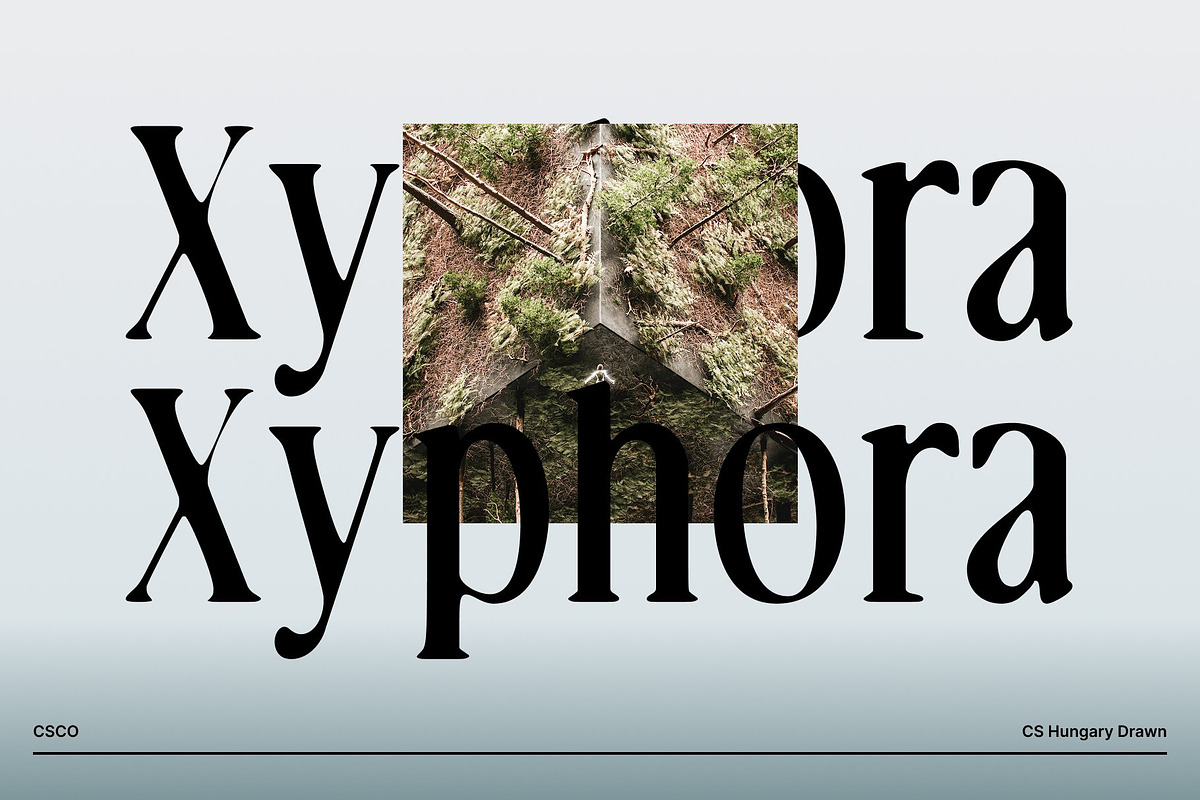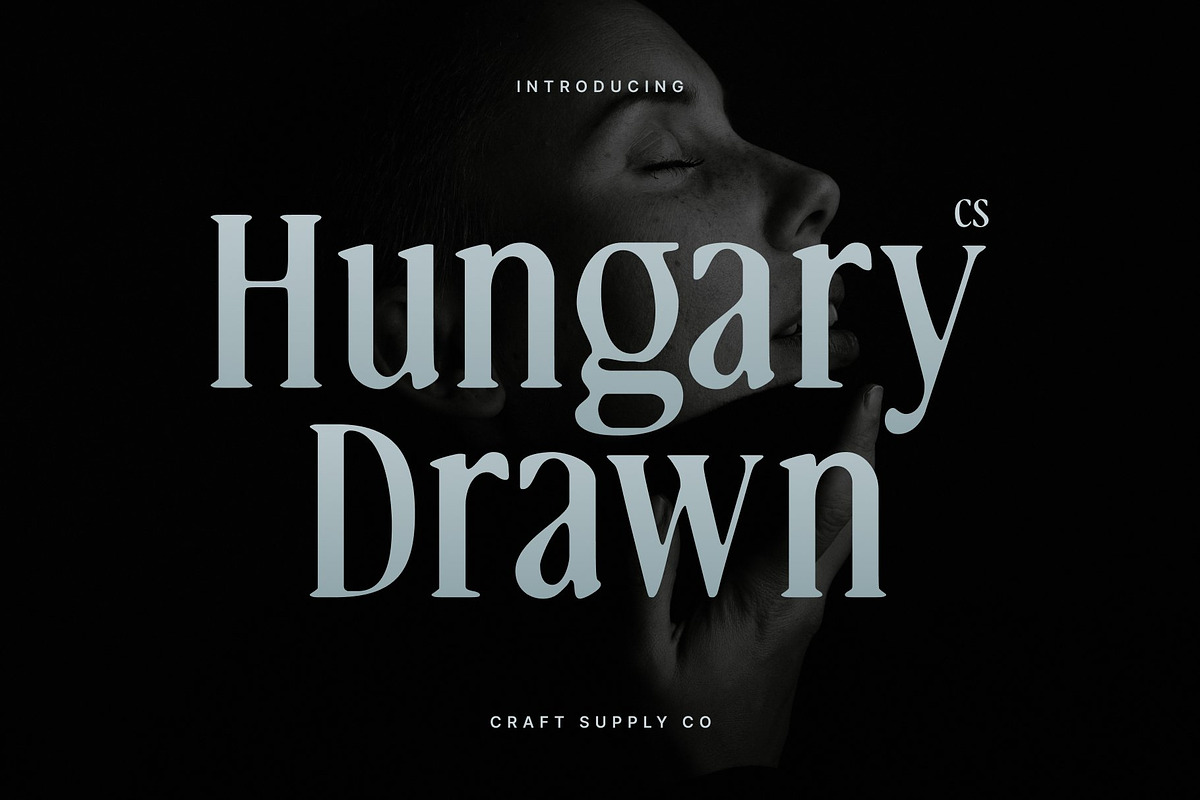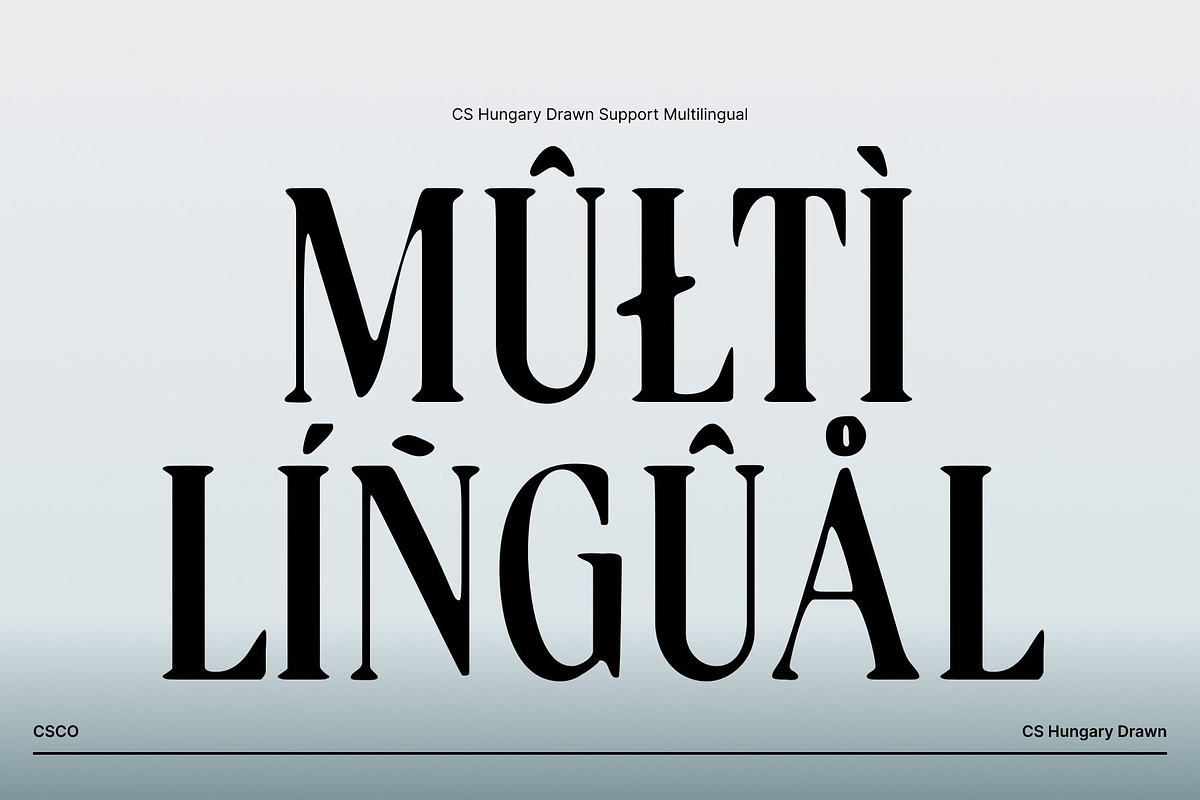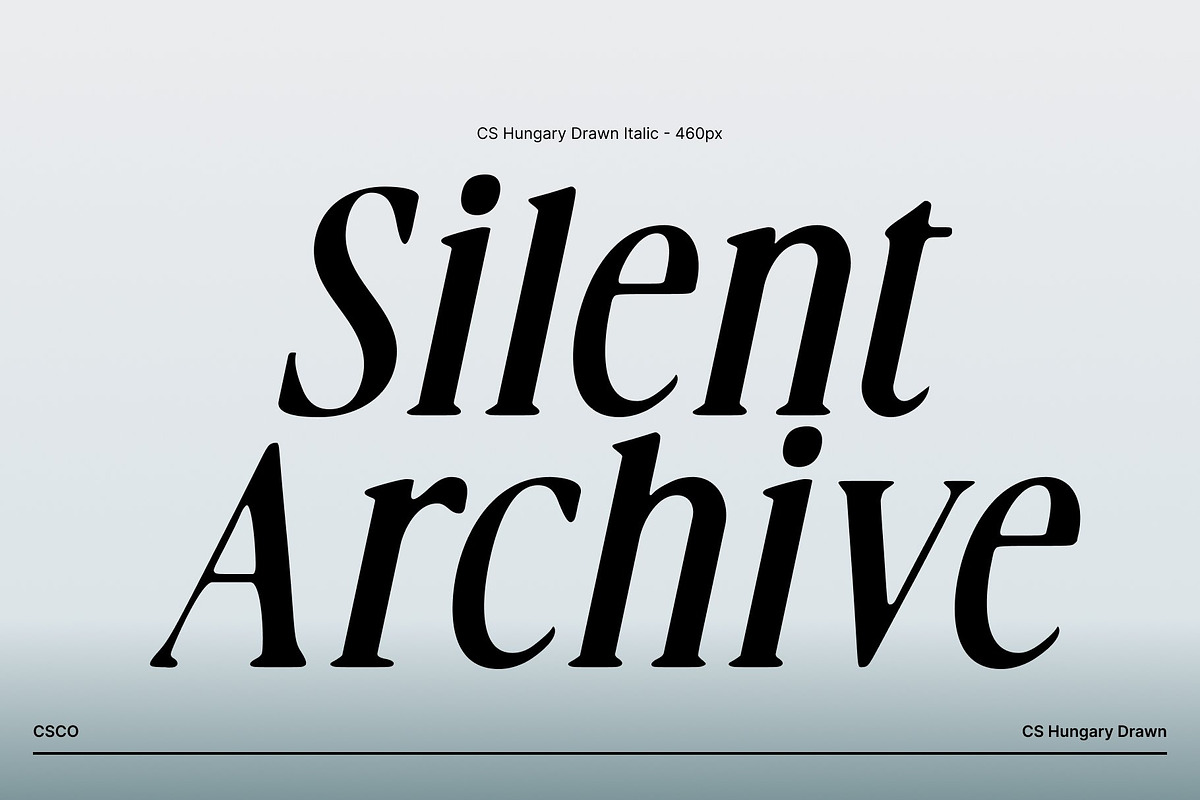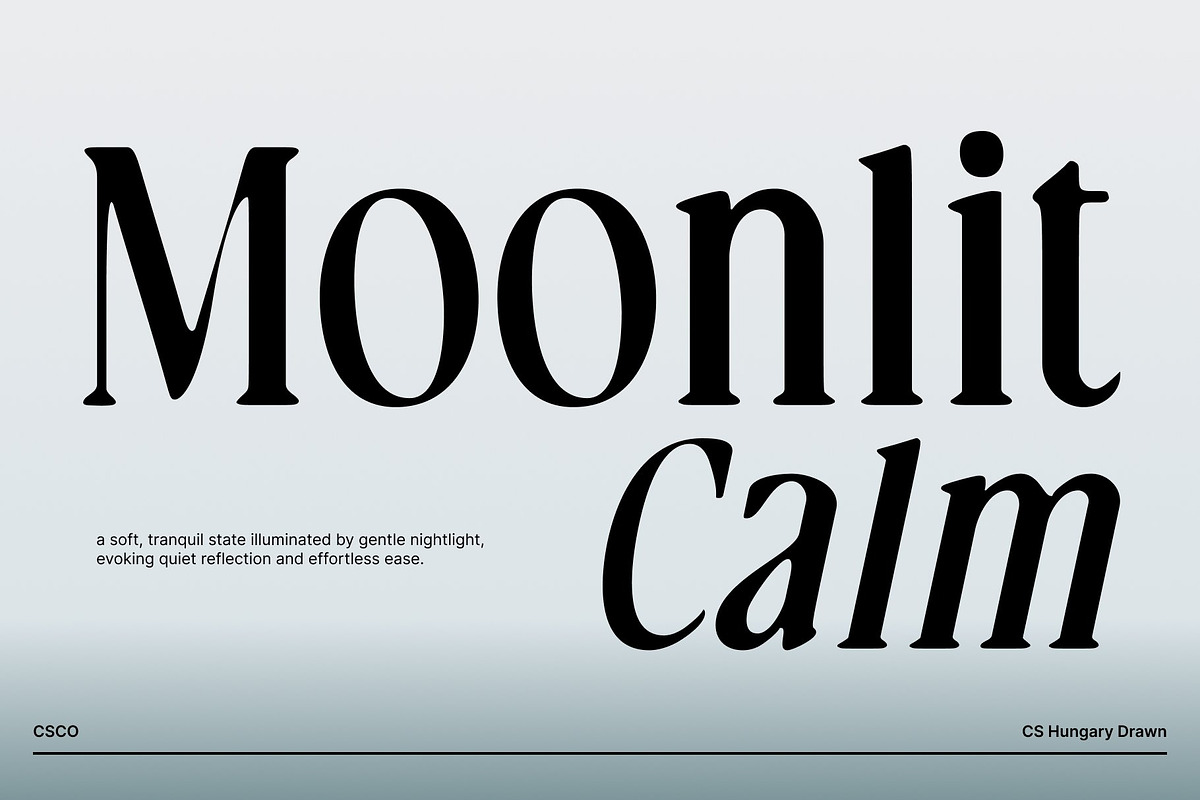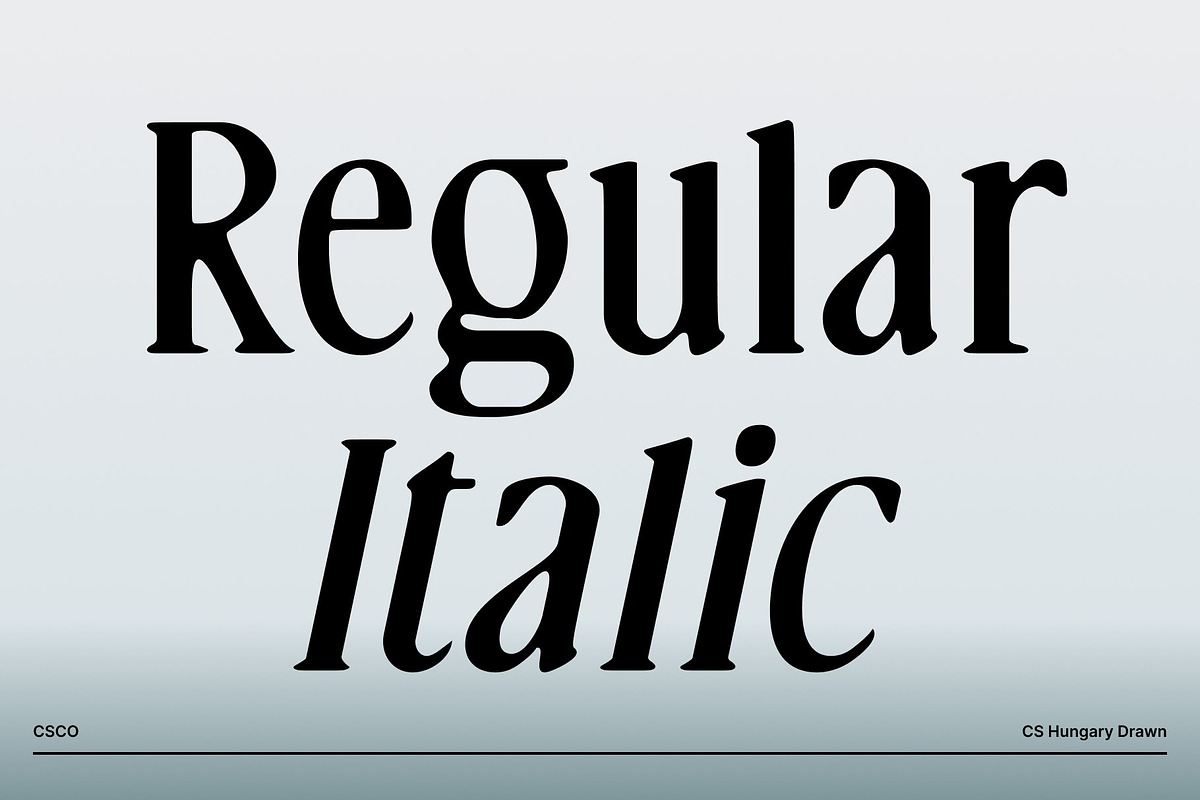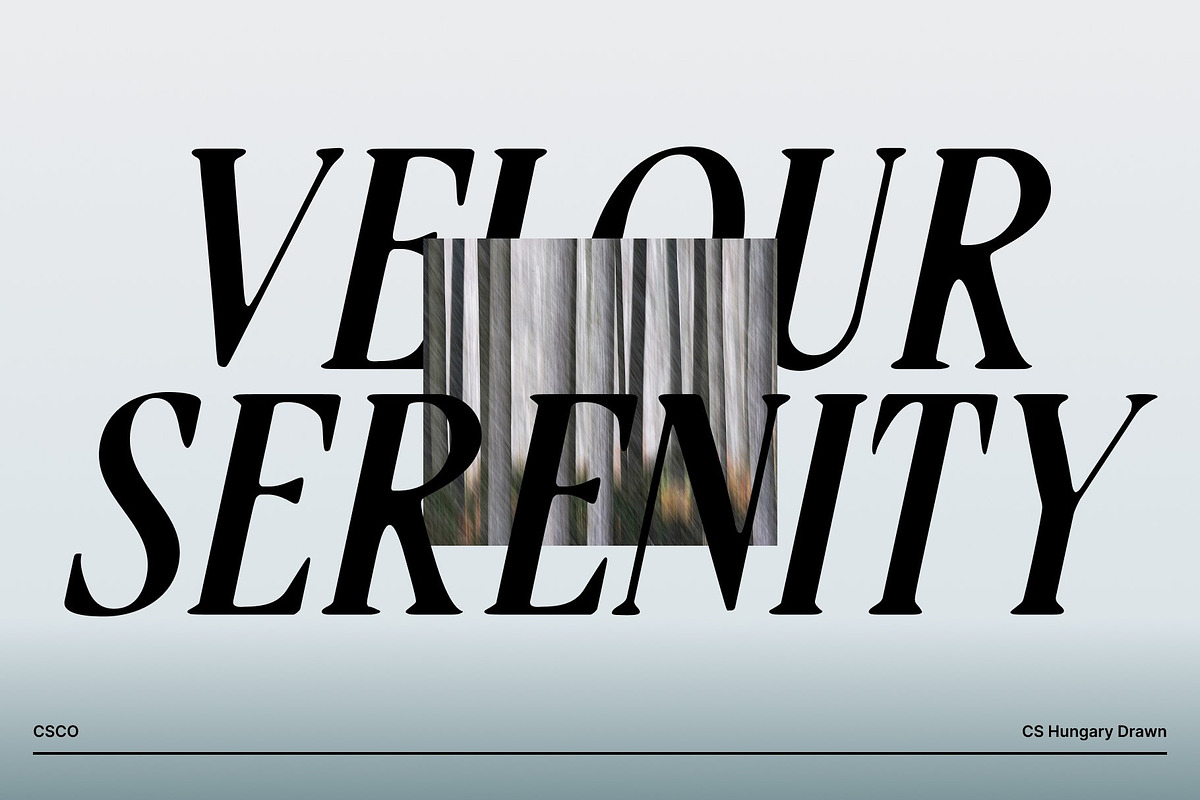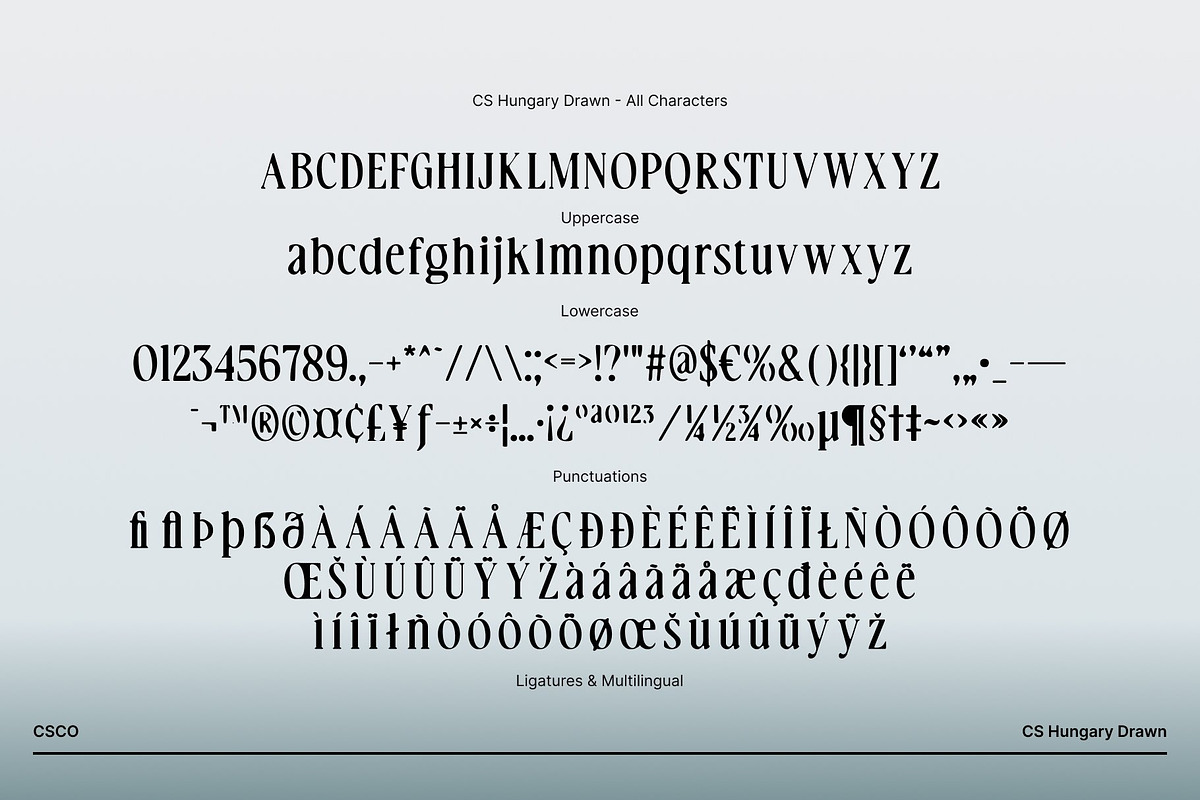
CS Hungary Drawn
CS Hungary Drawn – Renaissance-Inspired Serif with Artistic Drawn Expression
Timeless Letterforms with High-End Sophistication Refined curves define this elegant serif font, giving it a polished, high-end appearance. Inspired by classic Renaissance models, its balanced proportions and graceful construction reflect timeless typographic tradition. Each character feels harmonious and dignified, making the typeface ideal for sophisticated, detail-oriented design work that values clarity, heritage, and beauty.
Drawn Effect for Artistic and Expressive Shapes The drawn effect introduces an expressive, handcrafted quality that adds warmth and artistic depth to the refined serif forms. Subtle irregularities enhance the organic feel of each letter, transforming classic structure into visually engaging typography. This expressive touch softens the formality while preserving elegance, resulting in a font that feels both cultured and creative.
Perfect for Editorial, Books, Branding, and Packaging Perfectly suited for advanced book design, editorial layouts, luxury packaging, and refined branding projects, this font excels in both large headlines and extended text. Its Renaissance-inspired foundation ensures excellent readability, while the drawn texture adds distinctive character across print and digital applications.
A Harmonious Blend of Tradition and Artistic Expression By combining timeless Renaissance serif principles with expressive drawn detailing, this typeface offers a unique balance of classic sophistication and artistic flair. It is an ideal choice for designers seeking a refined, expressive font that elevates storytelling, craftsmanship, and visual elegance.
- CS Hungary Drawn Regular
- CS Hungary Drawn Italic